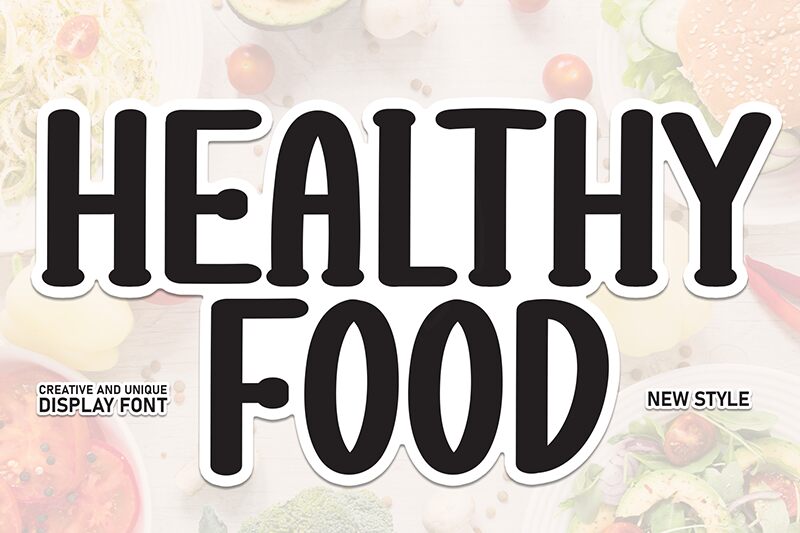
Healthy Food
Healthy Food font designed by Scratchones is a free brush font with a condensed width. The typeface presents a fun mood and retro-inspired feel, combining the thick brushed letters with shorter handwritten thin ones. Moreover, the letters make more of an impact when they’re used for display purposes both in print and in digital projects.
Add the vintage aesthetic brought into play to magazine headlines, website headers, brand identity items, product packaging designs before you move on to invitations or menus for events happening in restaurants and café shops as well as Instagram posts and Pinterest pictures.